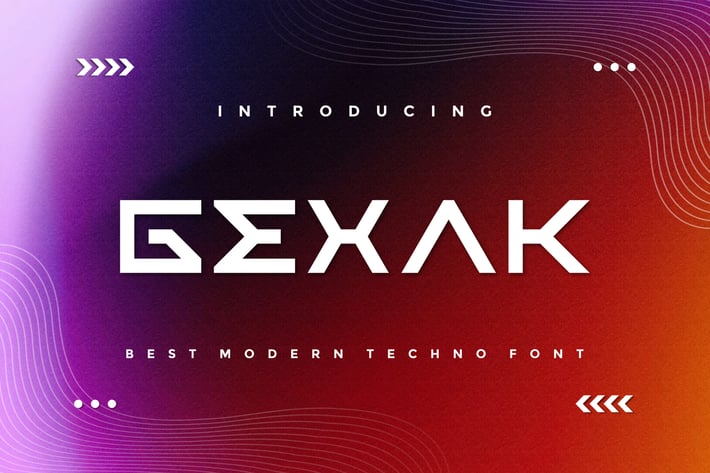
Gexak - Modern Techno Font
Introducing our new product Gexak - Modern Font
Gexak is a bold, modern display font with playful flair, ideal for attention-grabbing headlines, logos, and diverse design projects. Versatile and readable in both digital and print, Gexak adds a dynamic touch to your message.